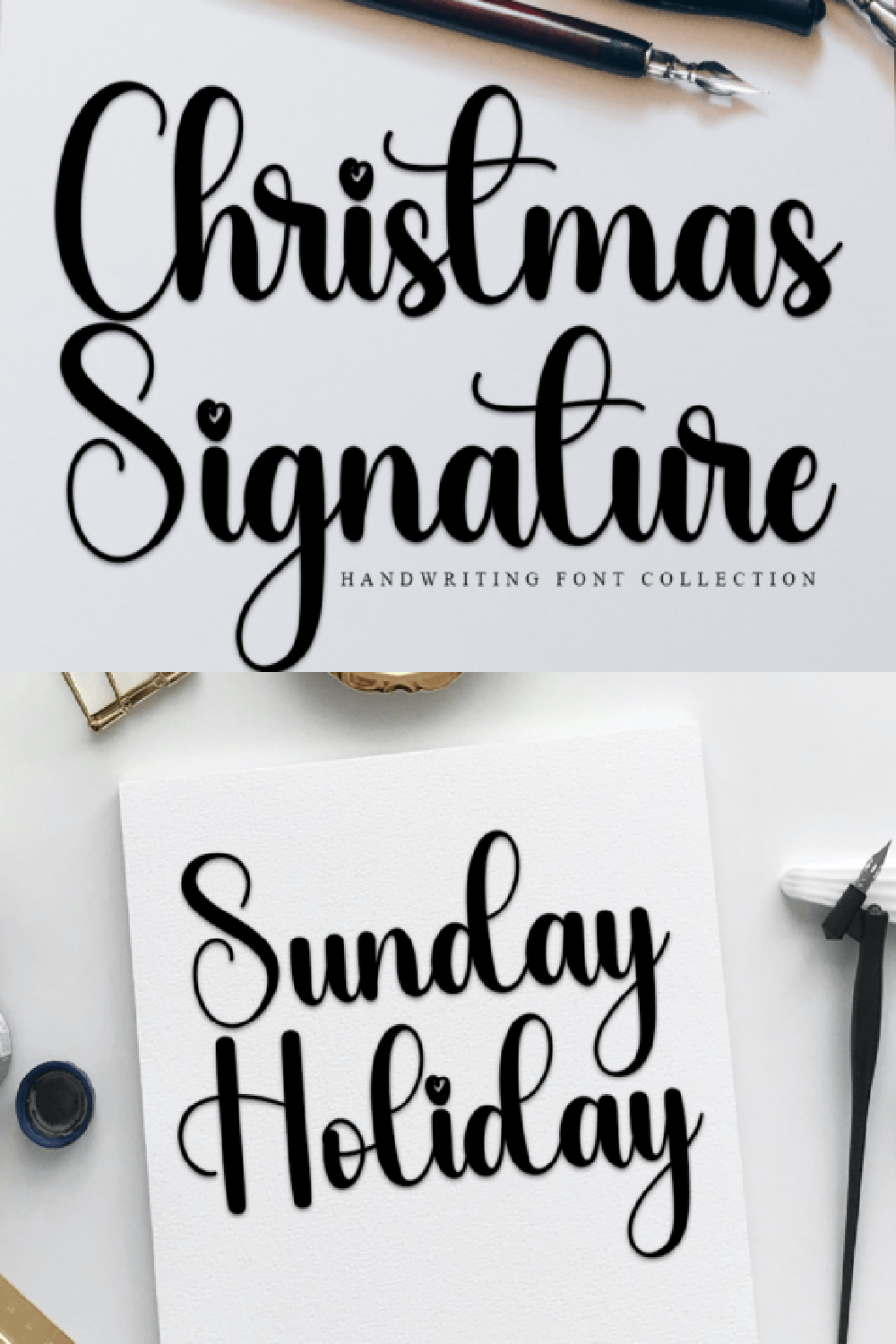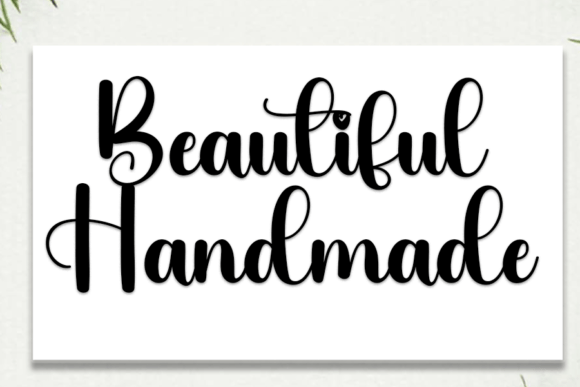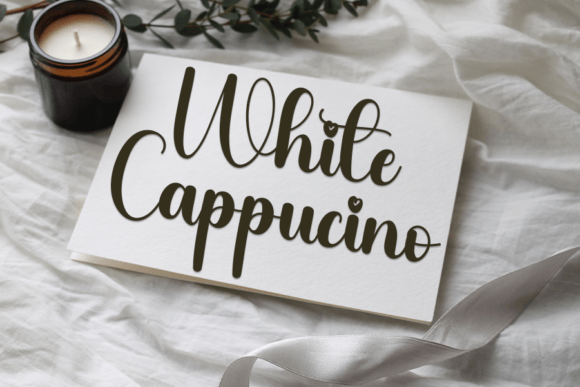
Christmas Signature Font
About the Christmas Signature Font
Elevate your designs with Christmas Signature Font, a font that combines sophistication with readability. Christmas SIgnature is a delicate handwritten font carefully crafted for a cool and unique design. This font can be used to write letters, invitations, food products, titles and more.